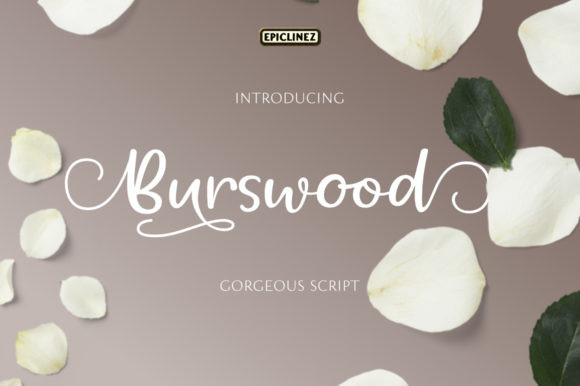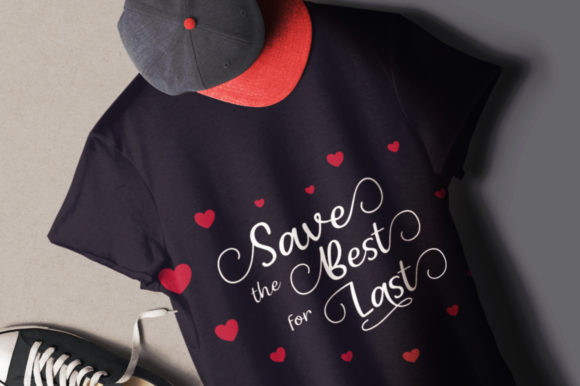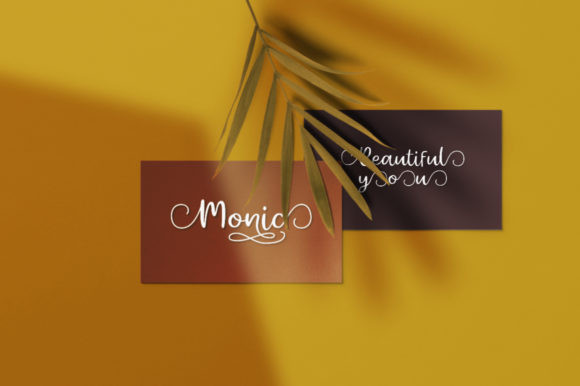
Burswood Font
Burswood is a gorgeous script font that will look cute and friendly across a wide range of craft projects. Fall in love with its casual and romantic charm!